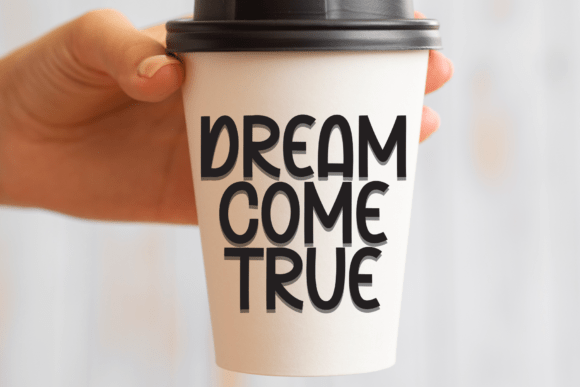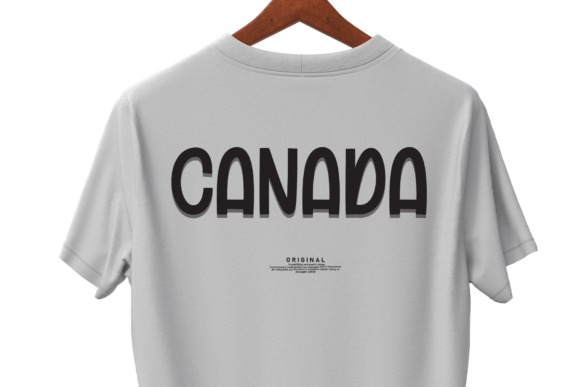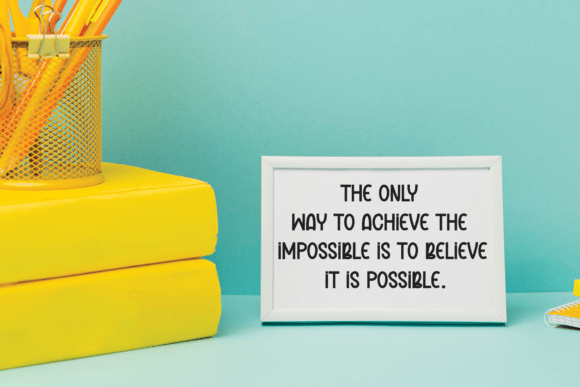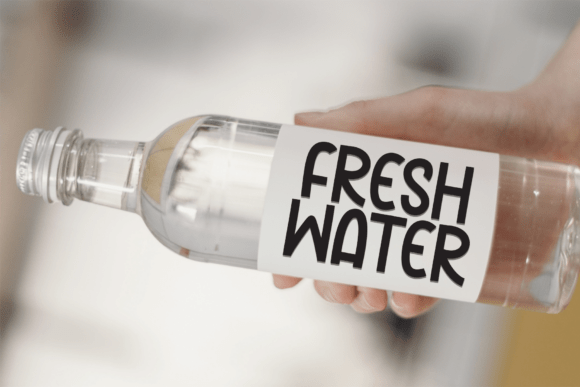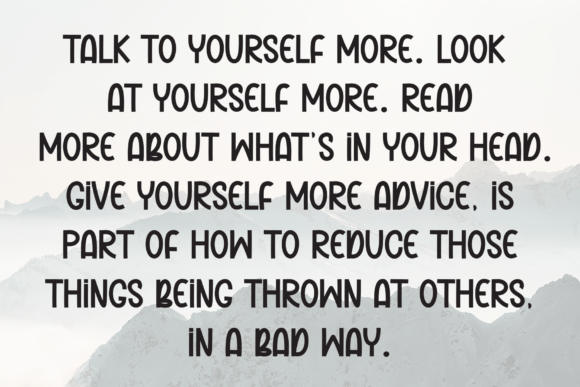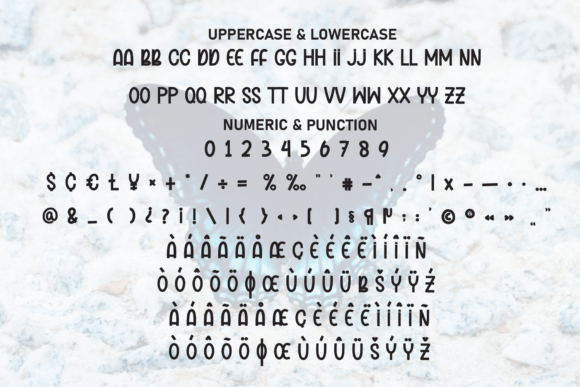
Introducing Butterfly Font: The Perfect Blend of Freshness and Friendliness
In the world of typography, a font can make or break the visual appeal of a design project. For designers and crafters looking for a font that exudes a sense of freshness and friendliness, Butterfly Font is an excellent choice. This casual and neat display font is designed to radiate a warm, approachable vibe that’s perfect for a variety of design applications.
Clean Lines and Relaxed Structure
Butterfly Font boasts clean lines and a relaxed structure that gives it a unique charm. The font’s design is characterized by its simplicity and elegance, making it an ideal choice for projects that require a touch of sophistication. The clean lines ensure that the text is easy to read, while the relaxed structure adds a sense of playfulness to the font.
Perfect for Packaging, Posters, and Social Media Graphics
Butterfly Font is a versatile font that can be used in a variety of design projects. Its fresh and friendly vibe makes it perfect for packaging designs that require a touch of whimsy and playfulness. The font is also well-suited for posters, social media graphics, and other visual materials that need to grab the attention of the audience. Whether you’re designing a logo, a brochure, or a social media post, Butterfly Font is an excellent choice.
Approachable Design Adds Charm and Clarity
One of the standout features of Butterfly Font is its approachable design. The font’s friendly and inviting appearance adds charm and clarity to any design project. The approachable design ensures that the text is easy to read and understand, making it perfect for projects that require a high level of legibility. The font’s polished appearance also ensures that it looks great in both digital and print formats.
Key Features of Butterfly Font
• Casual and neat display font: Butterfly Font is designed to be a casual and neat display font that’s perfect for headlines and titles.
• Fresh and friendly vibe: The font’s design exudes a sense of freshness and friendliness that’s perfect for a variety of design projects.
• Clean lines and relaxed structure: The font’s clean lines and relaxed structure give it a unique charm and make it easy to read.
• Perfect for packaging, posters, and social media graphics: Butterfly Font is a versatile font that can be used in a variety of design projects.
• Approachable design adds charm and clarity: The font’s approachable design ensures that the text is easy to read and understand.
Why Choose Butterfly Font?
There are many fonts available in the market, but Butterfly Font stands out from the rest due to its unique features and benefits. Here are some reasons why you should choose Butterfly Font for your next design project:
• Unique and eye-catching design: Butterfly Font has a unique and eye-catching design that will make your project stand out from the rest.
• High level of legibility: The font’s clean lines and relaxed structure ensure that the text is easy to read and understand.
• Versatile and flexible: Butterfly Font can be used in a variety of design projects, from packaging to social media graphics.
In conclusion, Butterfly Font is a fresh and friendly display font that’s perfect for designers and crafters looking for a unique and eye-catching font. Its clean lines, relaxed structure, and approachable design make it an excellent choice for a variety of design projects. Whether you’re designing a logo, a brochure, or a social media post, Butterfly Font is an excellent choice. So why wait? Download Butterfly Font today and take your design projects to the next level!